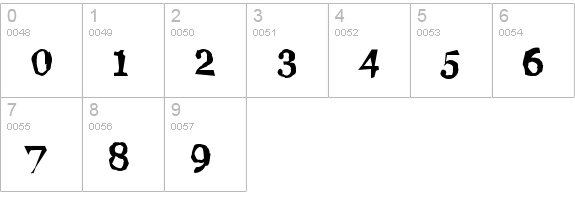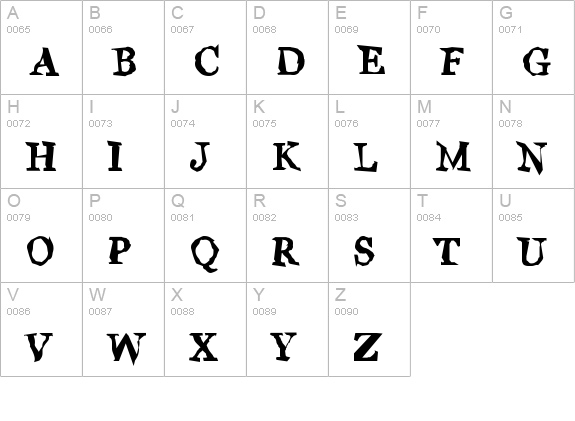
Wiggly Font Details
Introducing Wiggly font, a playful and energetic typeface that will bring a touch of whimsy to your designs. With its wiggly, hand-drawn letters, this font exudes a sense of fun and creativity. Perfect for adding a lighthearted and informal feel to projects such as children's books, party invitations, or even branding for a vibrant and lively business. What sets Wiggly font apart is not only its unique and charming style, but also the fact that it is available for free download at FontsMarket.com. Yes, you read that right – this delightful font can be yours without spending a dime. Whether you're a professional designer, a student, or simply someone who loves experimenting with different fonts, Wiggly font is freely accessible to all. With its wide range of characters, including uppercase and lowercase letters, numbers, punctuation marks, and special symbols, Wiggly font offers endless possibilities for creative expression. Each letter has been meticulously hand-drawn with a wiggly and playful touch, adding a dynamic and animated feel to your typography. Whether you're designing a poster for a children's event or creating a logo for a quirky brand, Wiggly font will bring a sense of joy and liveliness to your projects. Its versatility allows it to adapt to various design styles, from cute and whimsical to modern and trendy. So why wait? Head over to FontsMarket.com and download Wiggly font for free today. Unleash your creativity and add a touch of wiggly charm to your designs. With Wiggly font, the possibilities are endless – and best of all, it won't cost you a penny.